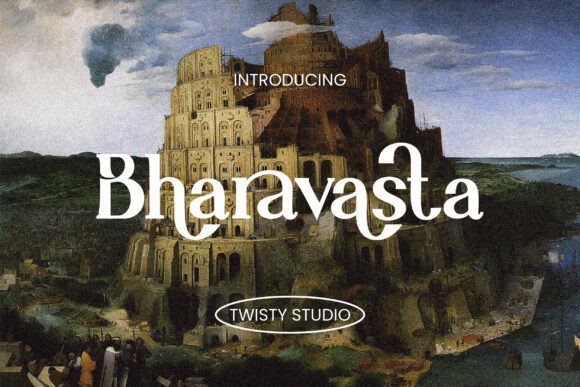
Timeless Typography: The Allure of the Bharavasta Font
Have you ever stumbled upon an old photograph or a vintage poster that instantly transports you to a bygone era? For many creatives, this is the moment when inspiration strikes – and it’s exactly what happens when you lay eyes on the Bharavasta Font. This retro serif font is a masterclass in nostalgic design, with its elegant curves and classic details that evoke a sense of timeless sophistication.
Whether you’re a seasoned designer or a newcomer to the world of typography, the Bharavasta Font is an invaluable asset in your creative toolkit. With its bold personality and retro flair, it’s the perfect choice for projects that demand a touch of old-school charm – from branding and poster headlines to vintage-themed designs and apparel prints.
Bharavasta Font Key Features
- Font Family: Bharavasta is a unique and traditional Indian font family, designed to cater to the needs of various languages, including Hindi, Marathi, and Gujarati.
- Unique Characteristics: This font features intricate designs and ornate details, inspired by traditional Indian art and architecture, making it an ideal choice for cultural and historical projects.
Bharavasta Font Review
I recently had the chance to work with the Bharavasta font, and I have to say it’s a mixed bag. Let’s start with the positives:
- ✨ The font has a unique, rustic feel to it that can add a lot of character to your design projects.
- ✨ The font is highly customizable, with a wide range of weights and styles to choose from.
- ✨ The font is also highly legible, even at small font sizes.
- ⚠️ The font can be a bit too ornate for some projects, and may not be suitable for text-heavy designs.
- ⚠️ The font may not render well on certain devices or in certain browsers, which can be a problem if you’re working on a web project.
Overall, I think the Bharavasta font is a solid choice for designers who want to add a bit of personality to their projects. While it may not be the best fit for every project, it’s definitely worth considering if you’re looking for a unique and customizable font.
Getting the Most Out of Bharavasta Font
To get the most out of Bharavasta font, use it for:
- Traditional and cultural designs.
- Historical and vintage-inspired designs.
- Exotic and international branding.
Bharavasta font is commonly used for:
- Travel and tourism branding.
- Cultural and historical events.
Alternatives to Bharavasta Font for Designers
1. Sukritam
Sukritam is a traditional Devanagari font with a beautiful, elegant design. It is suitable for formal and academic purposes, such as textbooks, research papers, and official documents. Sukritam is more refined and sophisticated compared to Bharavasta Font, making it ideal for formal and professional settings.
2. Rajdhani
Rajdhani is a sans-serif Devanagari font with a modern and clean design. It is suitable for digital media, such as websites, apps, and digital publications. Rajdhani is more contemporary and minimalistic compared to Bharavasta Font, making it ideal for modern and tech-savvy audiences.
3. Aparajita
Aparajita is a Devanagari font with a classic and traditional design. It is suitable for historical and cultural contexts, such as ancient texts, classical literature, and cultural events. Aparajita is more ornate and elaborate compared to Bharavasta Font, making it ideal for traditional and cultural settings.